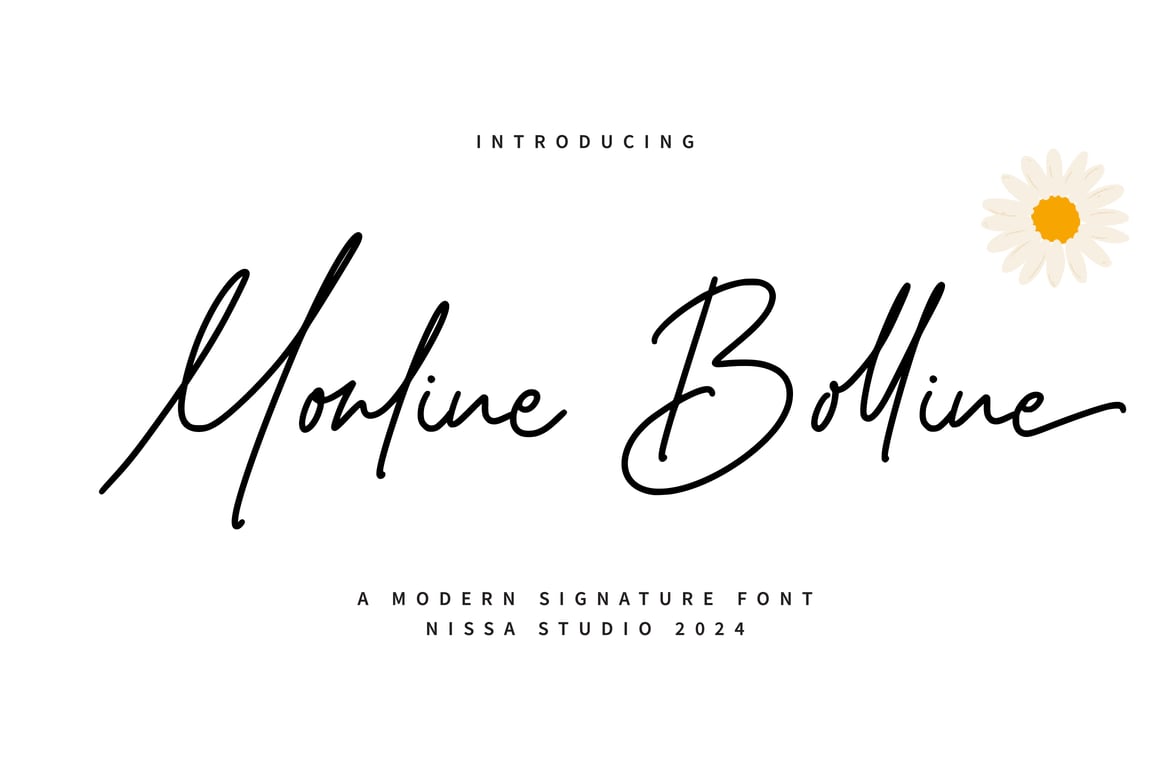
Monline Bolline – Signature Font
Each Font Has:
* Modern Handwritten Font
* Beautiful Swash (Ending tail)
* Beautiful Titling (Beginning tail)
* Special Ligatures